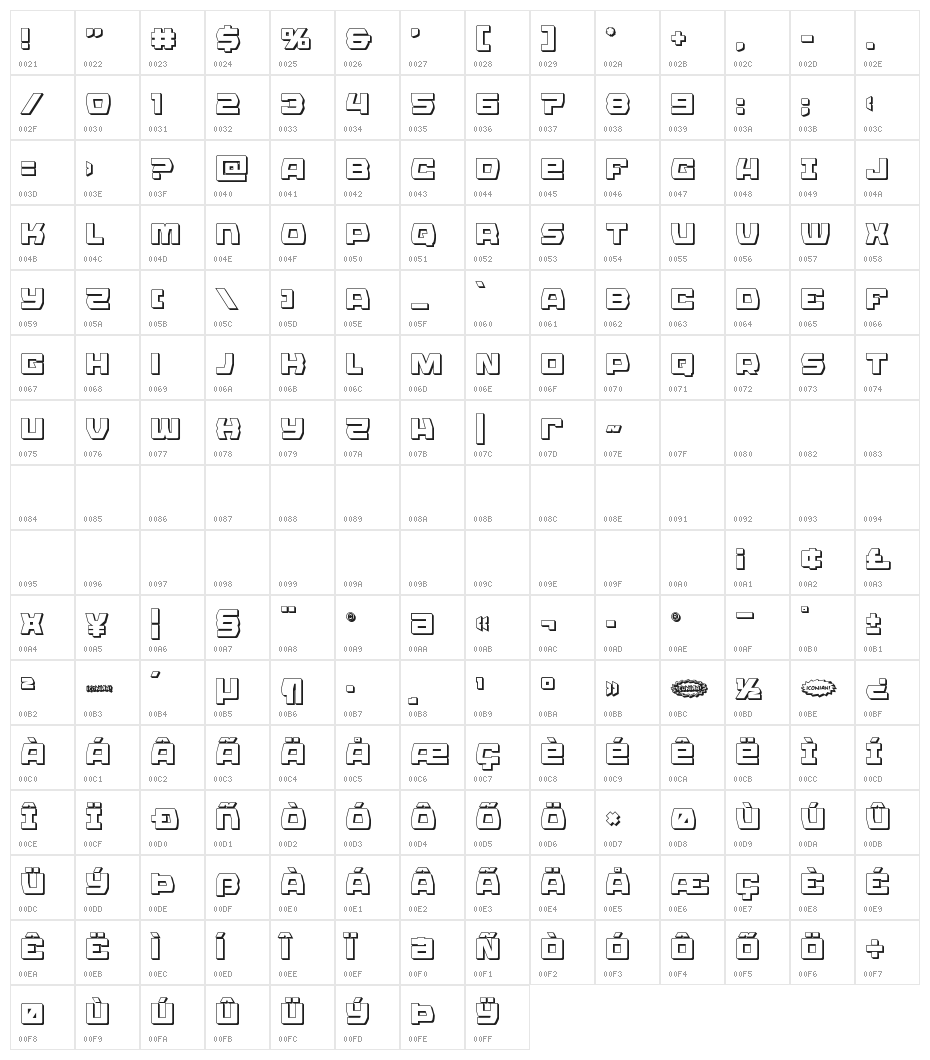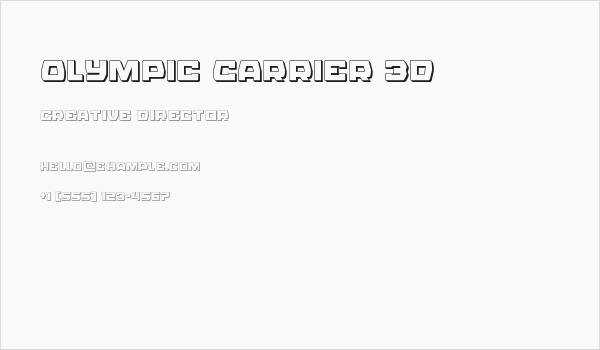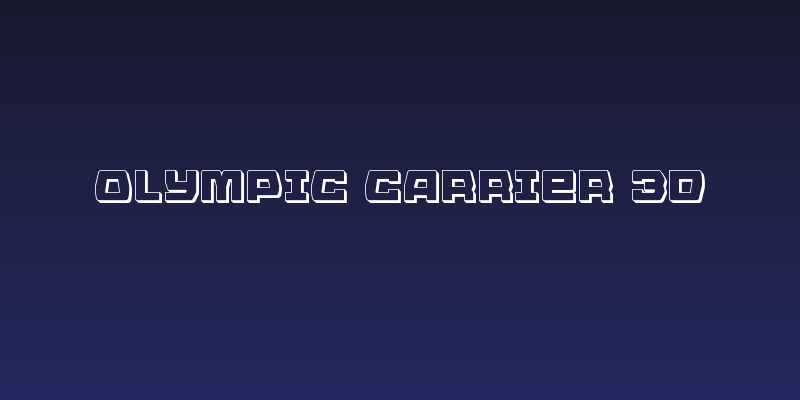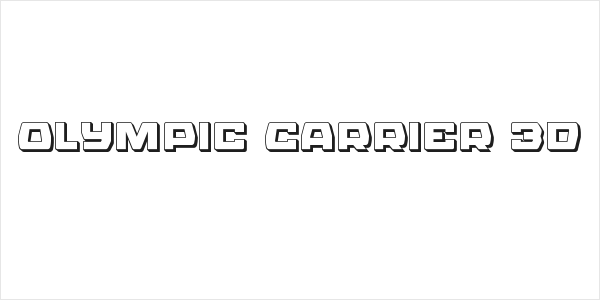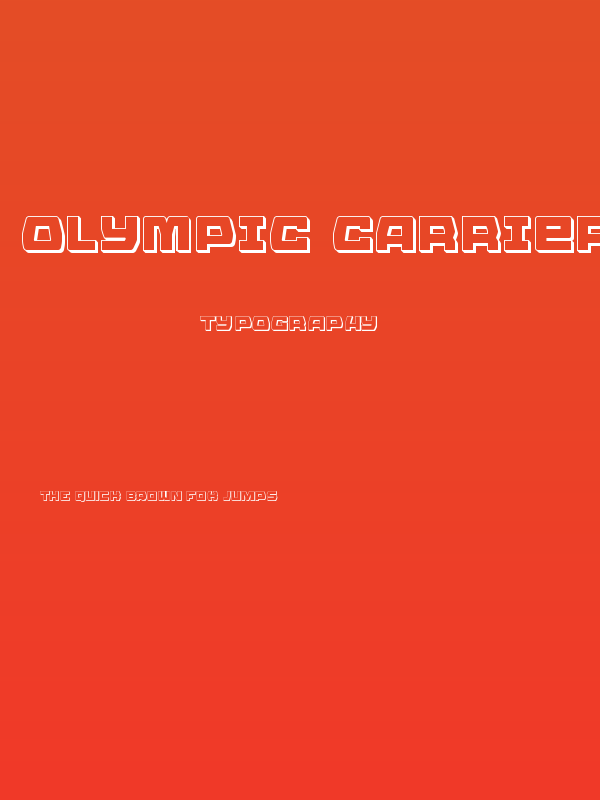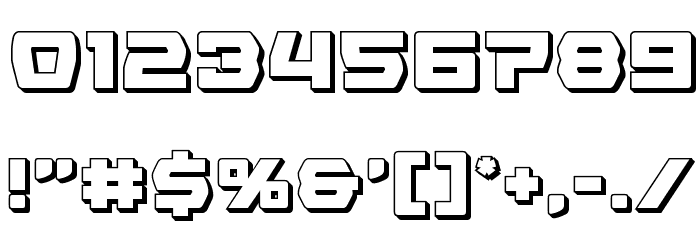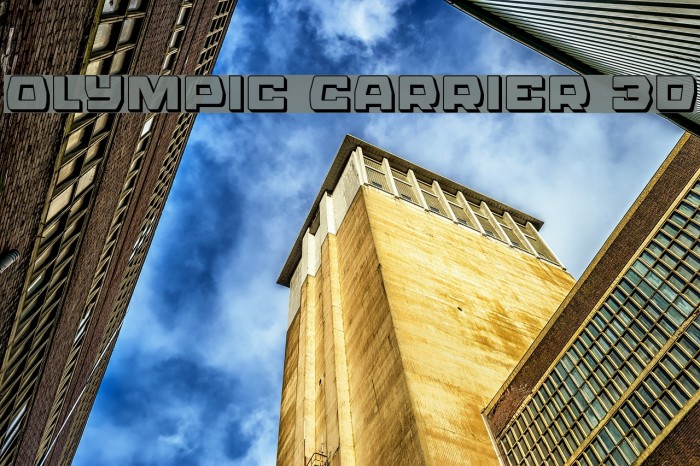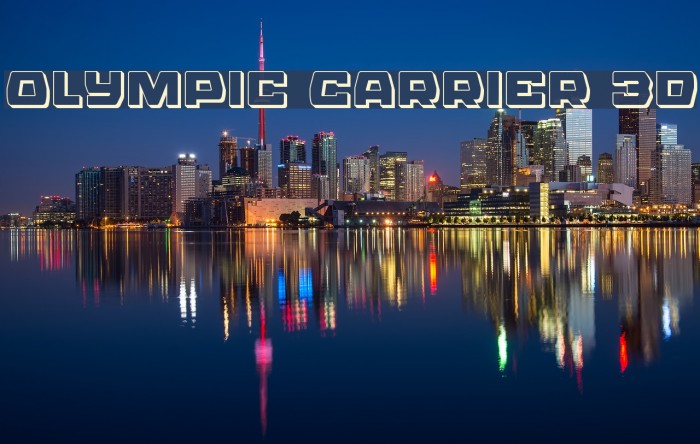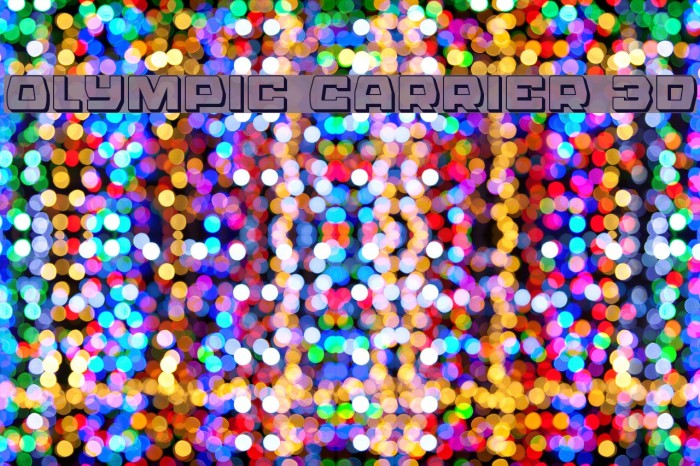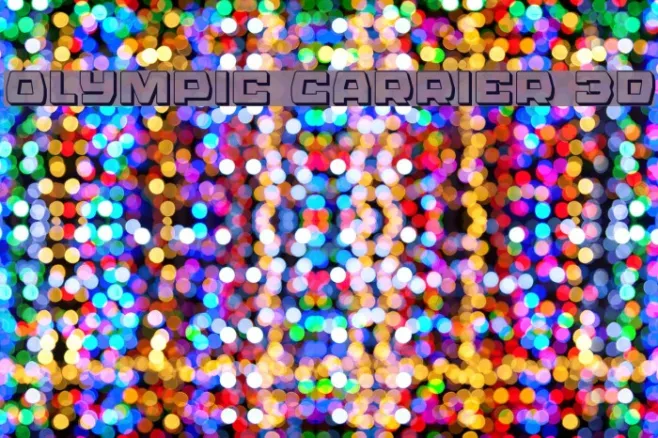
Olympic Carrier 3D Font
Olympic Carrier 3D Description
This font features a bold, three-dimensional appearance with a strong, geometric structure. Each character is outlined with a thick border, creating a shadow effect that gives depth and a sense of solidity. The uppercase and lowercase letters maintain a consistent style, with angular edges and a blocky form that emphasizes its modern and futuristic aesthetic. The numerals and special characters follow the same design principles, ensuring uniformity across all glyphs. This font is eye-catching and designed to stand out, making it suitable for impactful visual statements.
| Proposed Projects | Ideal for video game titles, sci-fi movie posters, tech branding, and any project requiring a strong, futuristic look. |